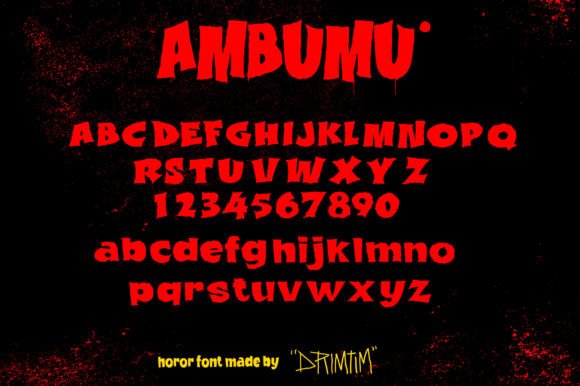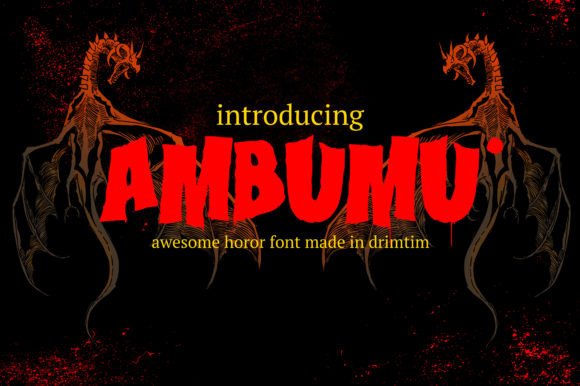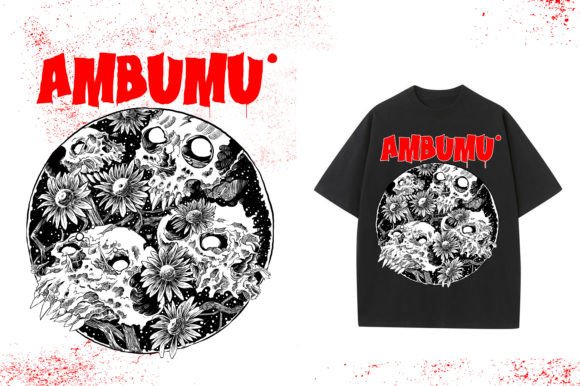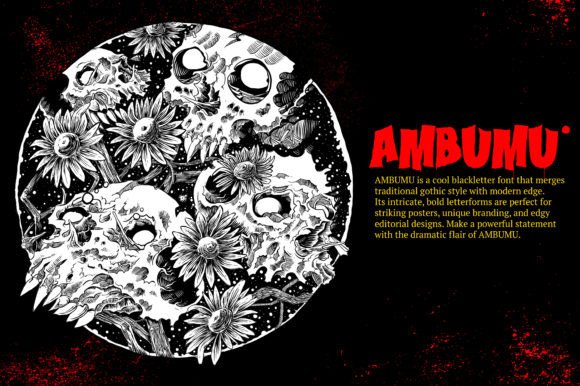
Unleash the Spookiness: Introducing Ambumu Font
Are you tired of using the same old fonts for your designs? Do you want to add a touch of spookiness and uniqueness to your projects? Look no further than Ambumu Font, a cool and spooky display font that combines traditional gothic style with a modern edge.
The Perfect Blend of Traditional and Modern
Ambumu Font is a masterful blend of traditional gothic style and modern design elements. Its intricate, bold letterforms are perfect for creating striking posters, unique branding, and edgy editorial designs. The font’s unique design makes it stand out from other fonts in the market, giving you the opportunity to create designs that are truly one-of-a-kind.
Key Features of Ambumu Font
- Intricate and Bold Letterforms: Ambumu Font features intricate and bold letterforms that are perfect for creating eye-catching designs.
- Traditional Gothic Style: The font combines traditional gothic style with modern design elements, making it perfect for designs that require a touch of classic elegance.
- Modern Edge: Ambumu Font has a modern edge that makes it perfect for designs that require a contemporary look and feel.
- Perfect for Display Designs: The font is perfect for display designs, including posters, flyers, and brochures.
Use Cases for Ambumu Font
Ambumu Font is perfect for a variety of design projects, including:
- Posters and Flyers: Create eye-catching posters and flyers that grab attention with Ambumu Font.
- Branding and Logo Design: Use Ambumu Font to create unique and memorable branding and logo designs.
- Editorial Design: Add a touch of spookiness and elegance to your editorial designs, including magazines and newspapers.
- Packaging Design: Use Ambumu Font to create eye-catching packaging designs that stand out on store shelves.
Tips for Using Ambumu Font
Here are some tips for using Ambumu Font in your designs:
- Use it as a Display Font: Ambumu Font is perfect for display designs, so use it to create eye-catching headlines and titles.
- Experiment with Colors: Ambumu Font looks great in a variety of colors, so experiment with different colors to find the one that works best for your design.
- Pair it with Other Fonts: Ambumu Font pairs well with other fonts, so experiment with different font combinations to find the one that works best for your design.
Ambumu Font is a unique and versatile font that is perfect for designers and crafters who want to add a touch of spookiness and elegance to their designs. With its intricate, bold letterforms and traditional gothic style, Ambumu Font is perfect for a variety of design projects, including posters, branding, and editorial designs. So why wait? Download Ambumu Font today and start creating designs that are truly one-of-a-kind.